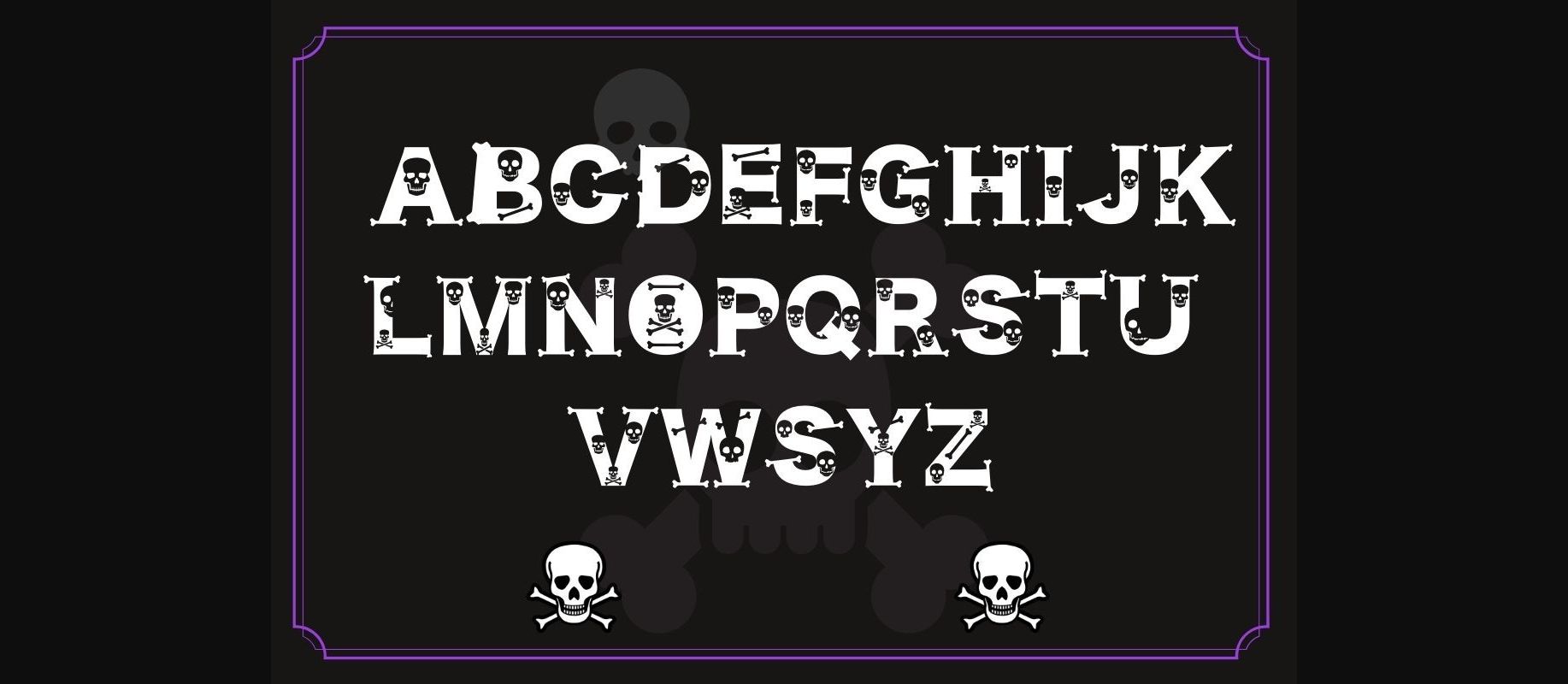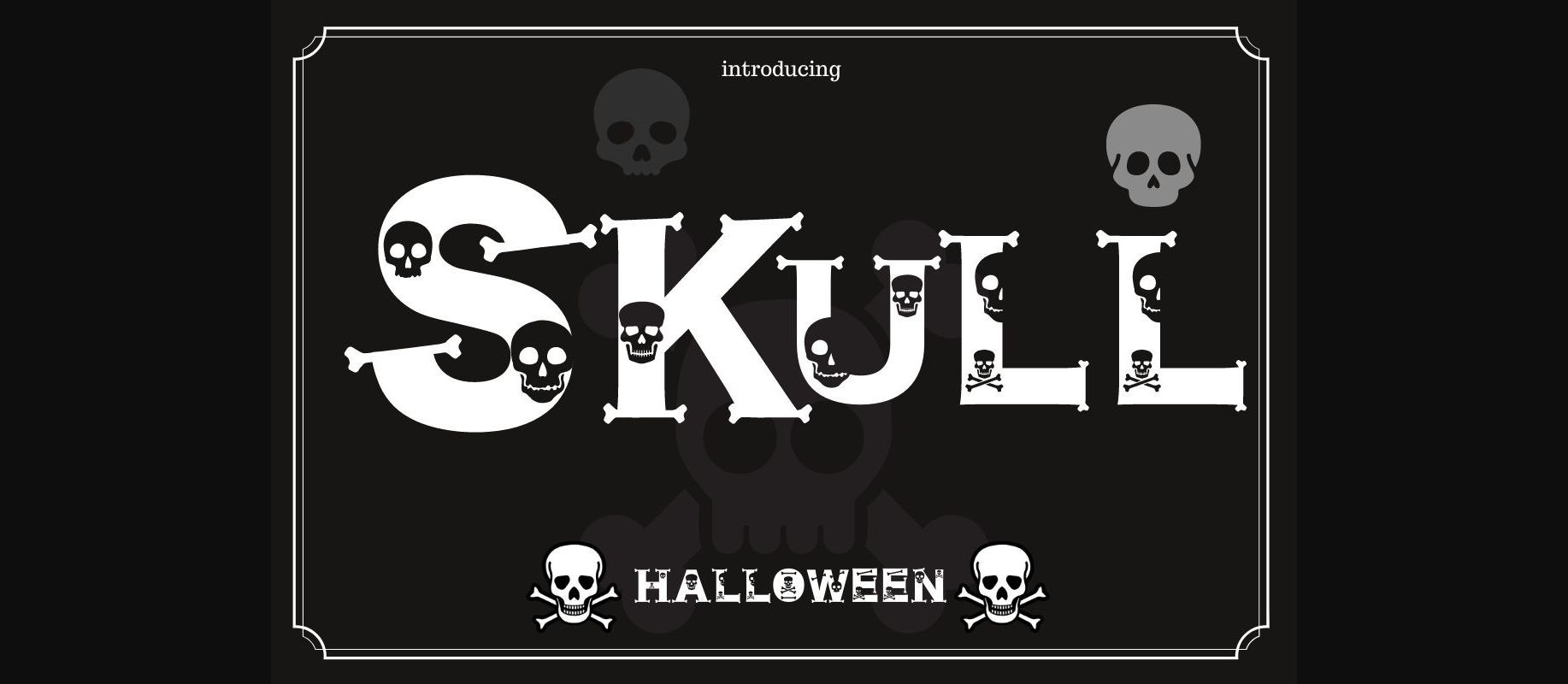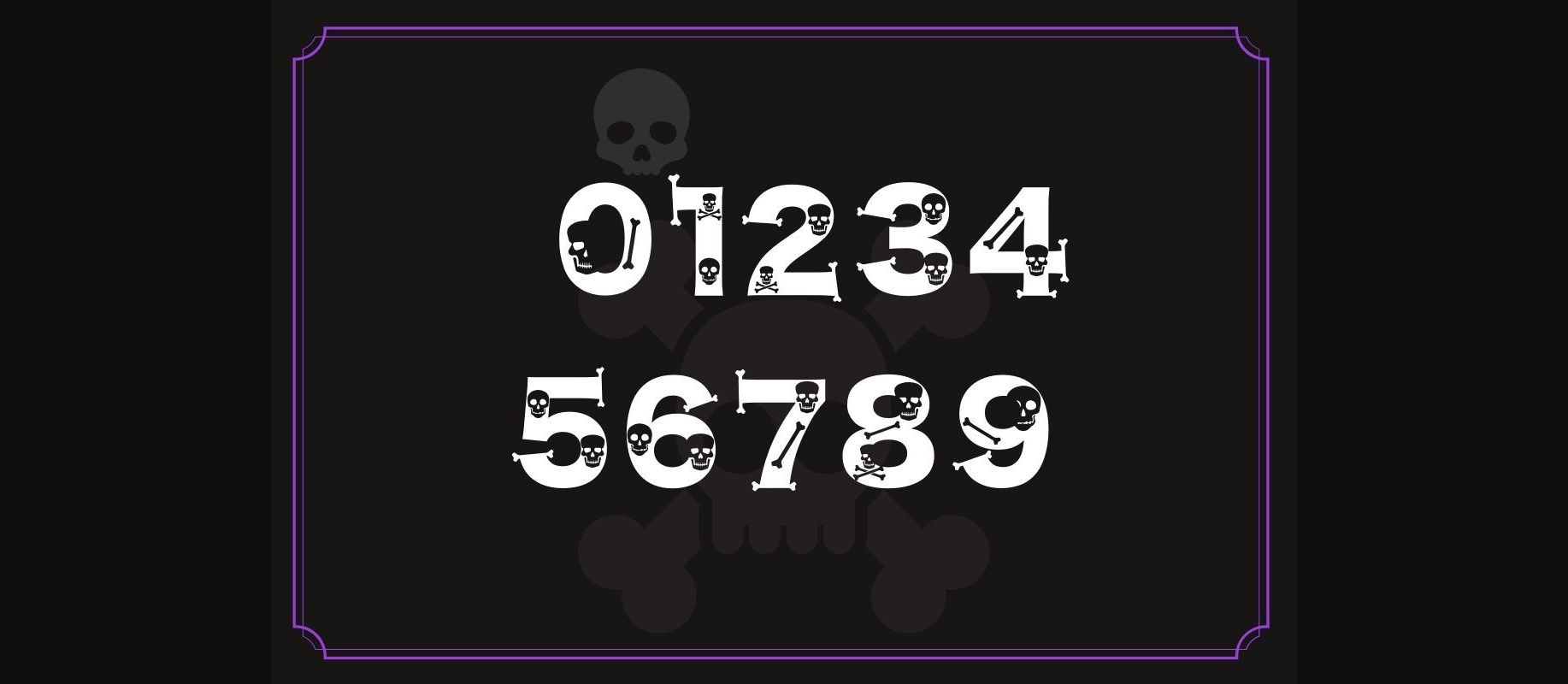
Skull Halloween Font
About Skull Halloween Font
Skull Halloween is a cool and creepy decorative font. Add it confidently to your spooky creations and let yourself be amazed by the outcome generated.